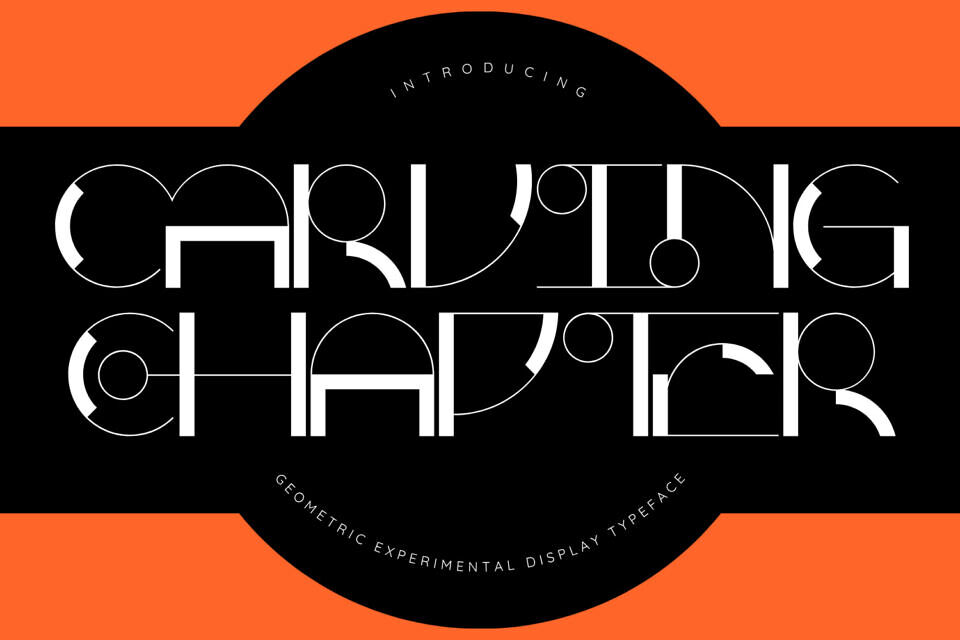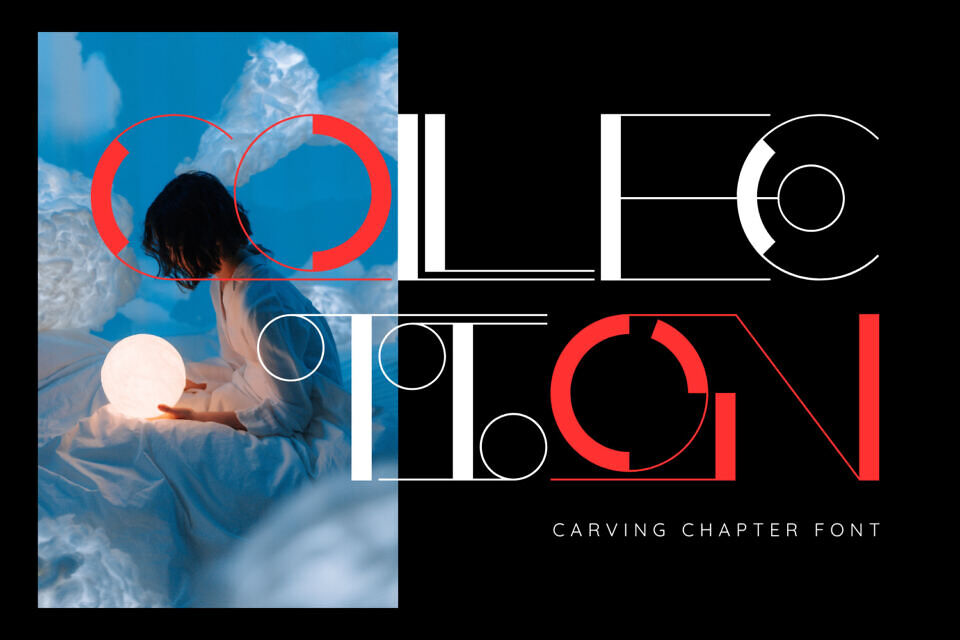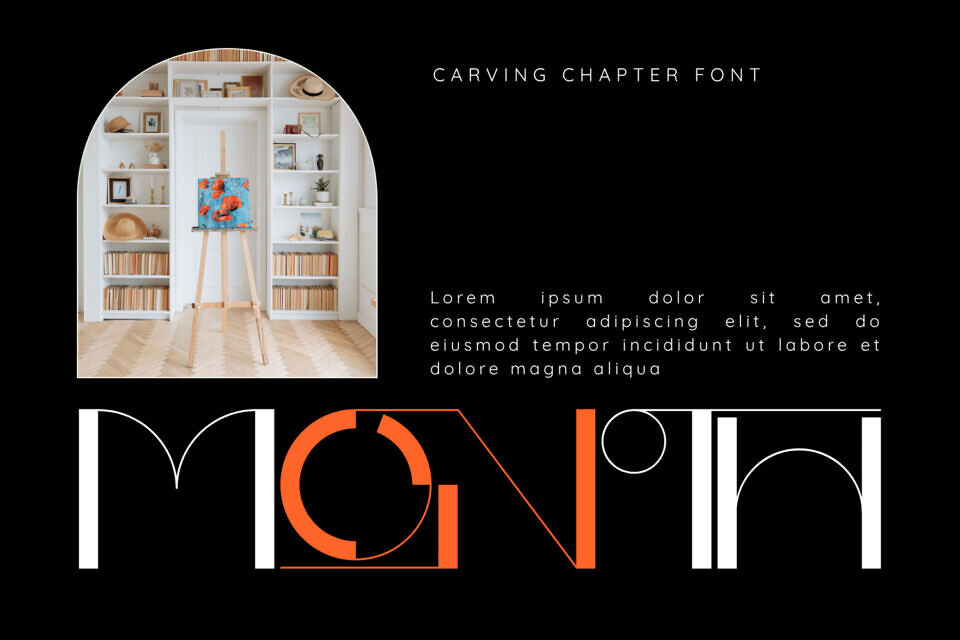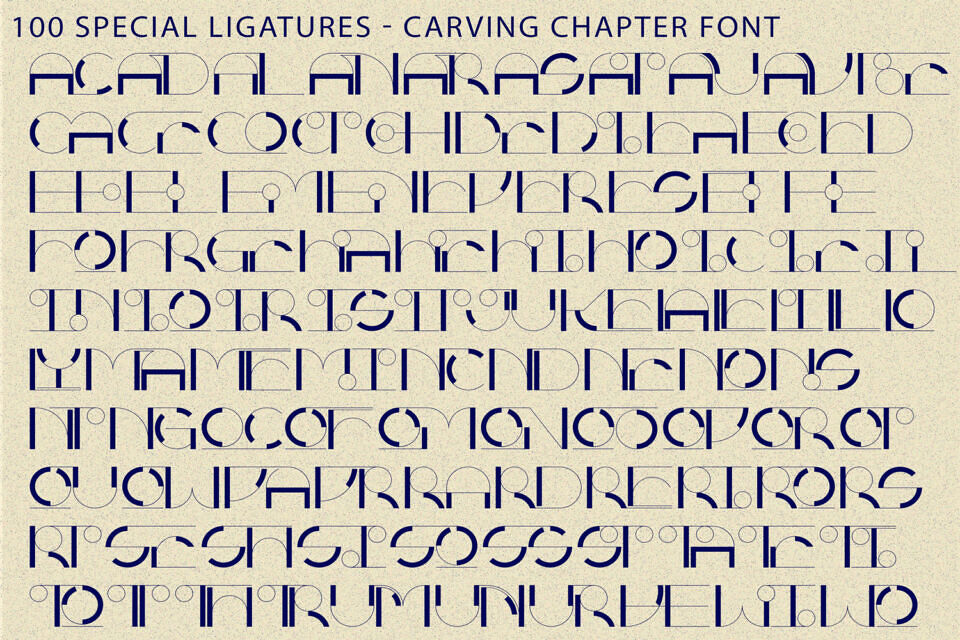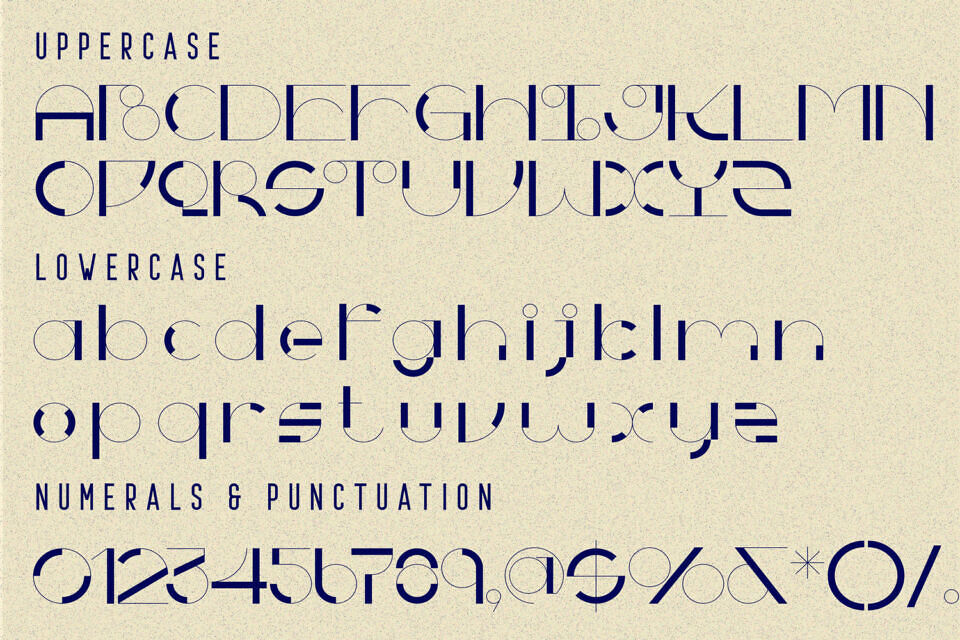
Carving Chapter Font
CARVING CHAPTER is a modern Art Deco display font that blends geometric precision with refined decorative details. Built from elegant circles, clean vertical lines, and delicate architectural strokes, this typeface delivers a sophisticated balance between minimalism and luxury.
Inspired by the glamour of classic Art Deco design and reimagined through a contemporary lens, CARVING CHAPTER features distinctive circular accents, ultra-thin ornamental lines, and beautifully structured letterforms that command attention without overwhelming the composition.